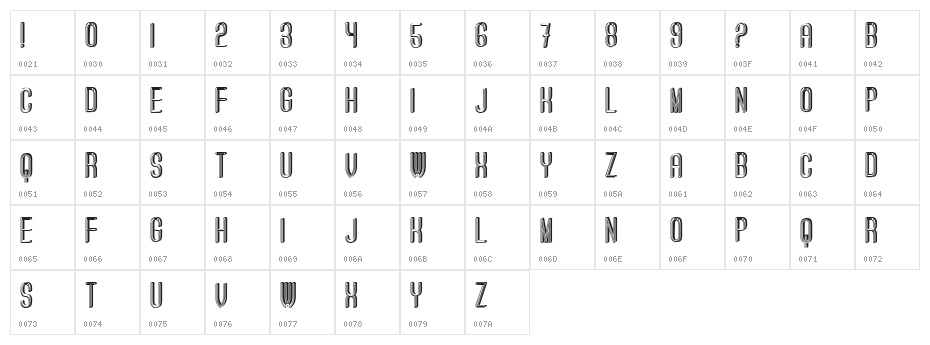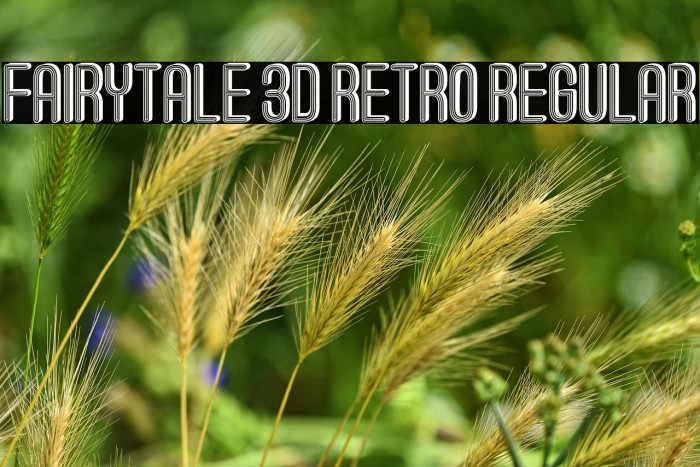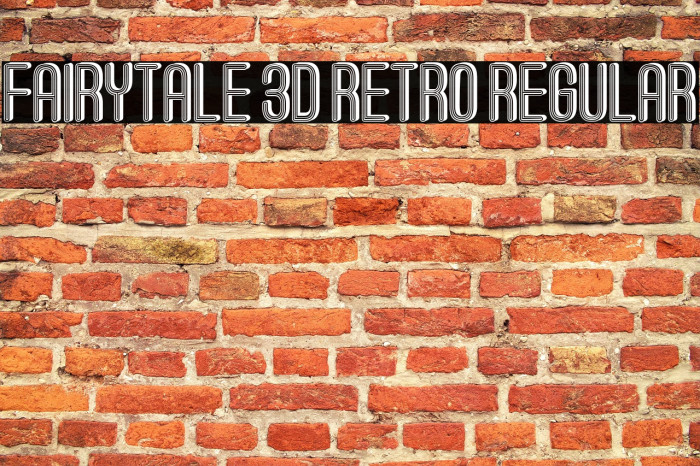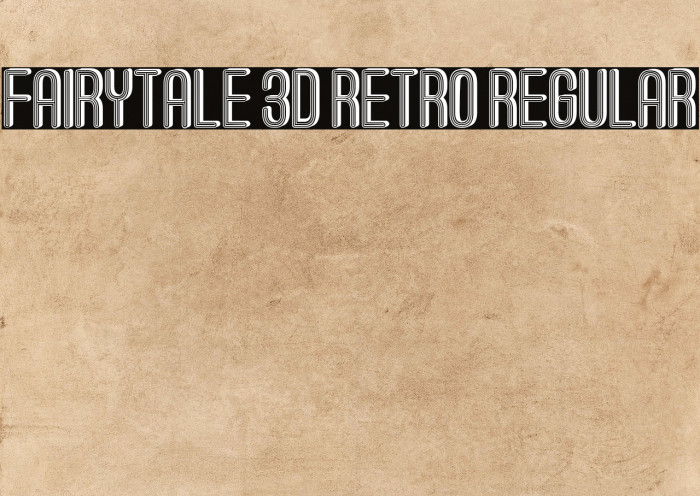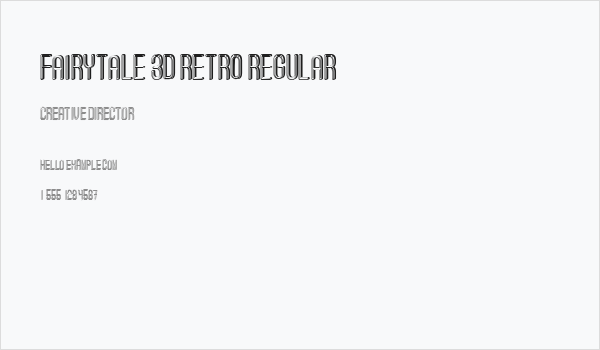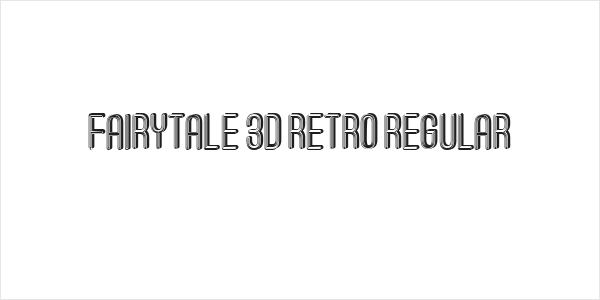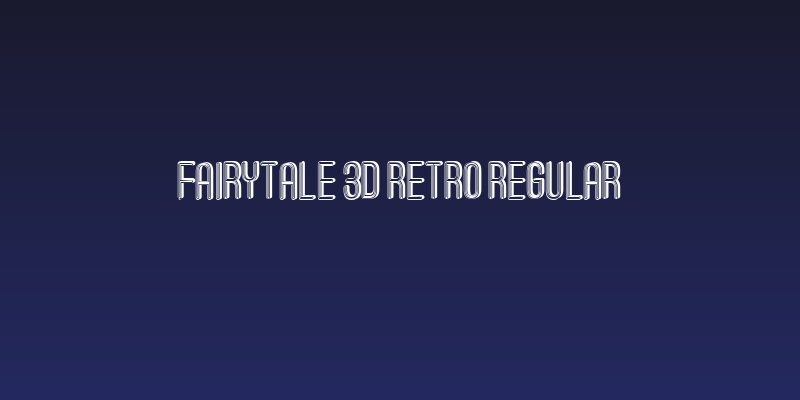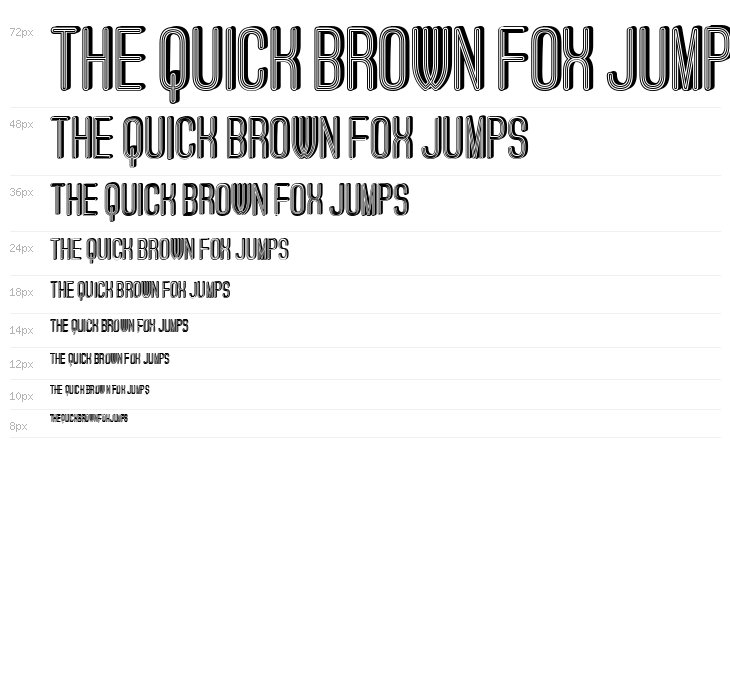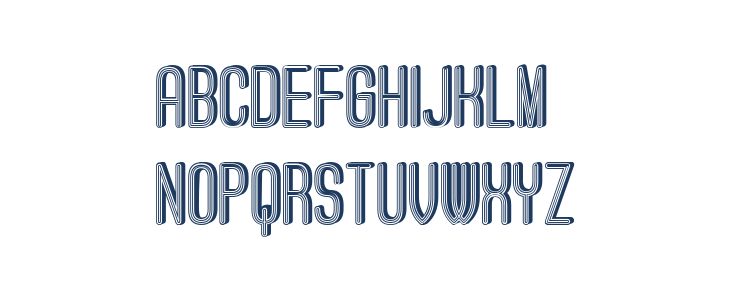
Fairytale 3D Retro Regular Font
Fairytale 3D Retro Regular Description
This font features a bold, retro-inspired 3D design that captures attention with its layered, outlined style. The characters are uppercase and numerals, each exhibiting a distinct shadow effect that adds depth and dimension. Its geometric structure is consistent, with rounded edges that soften the overall appearance. The font's playful yet structured design makes it ideal for projects that require a vintage or nostalgic feel, while still maintaining a modern edge. The spacing between characters is balanced, ensuring readability despite the intricate design. This font is perfect for creating eye-catching headlines, posters, or branding materials that need a touch of retro flair.
| Overall Style | Retro, Decorative |
| Use Case | Headlines, Posters, Branding |
| Proposed Projects | Ideal for vintage-themed posters, branding, headlines, and advertising materials. |